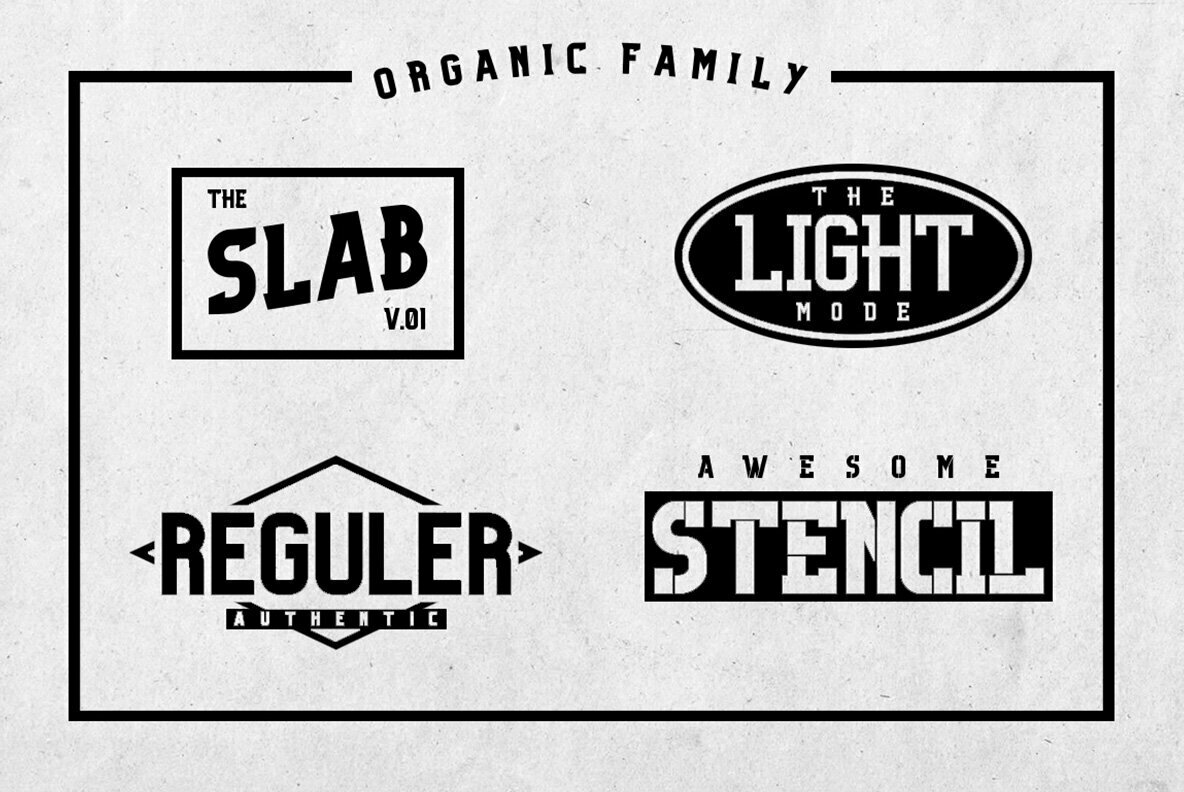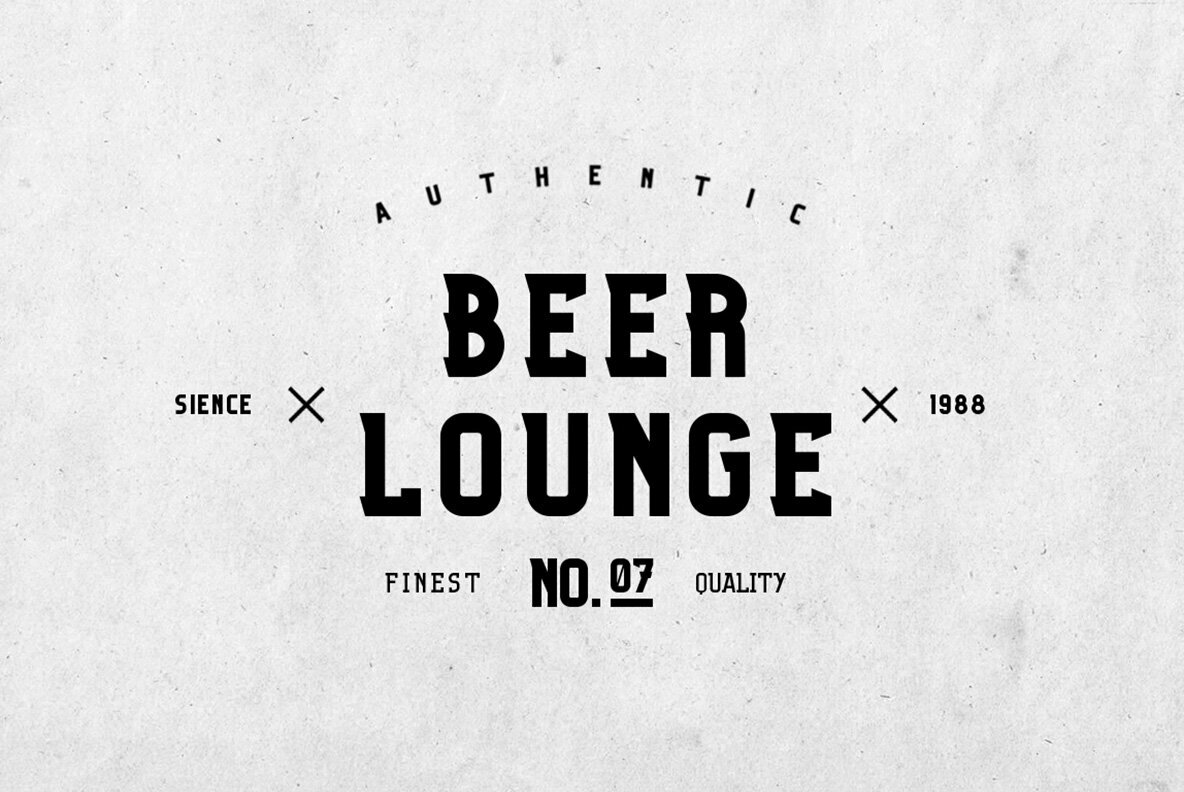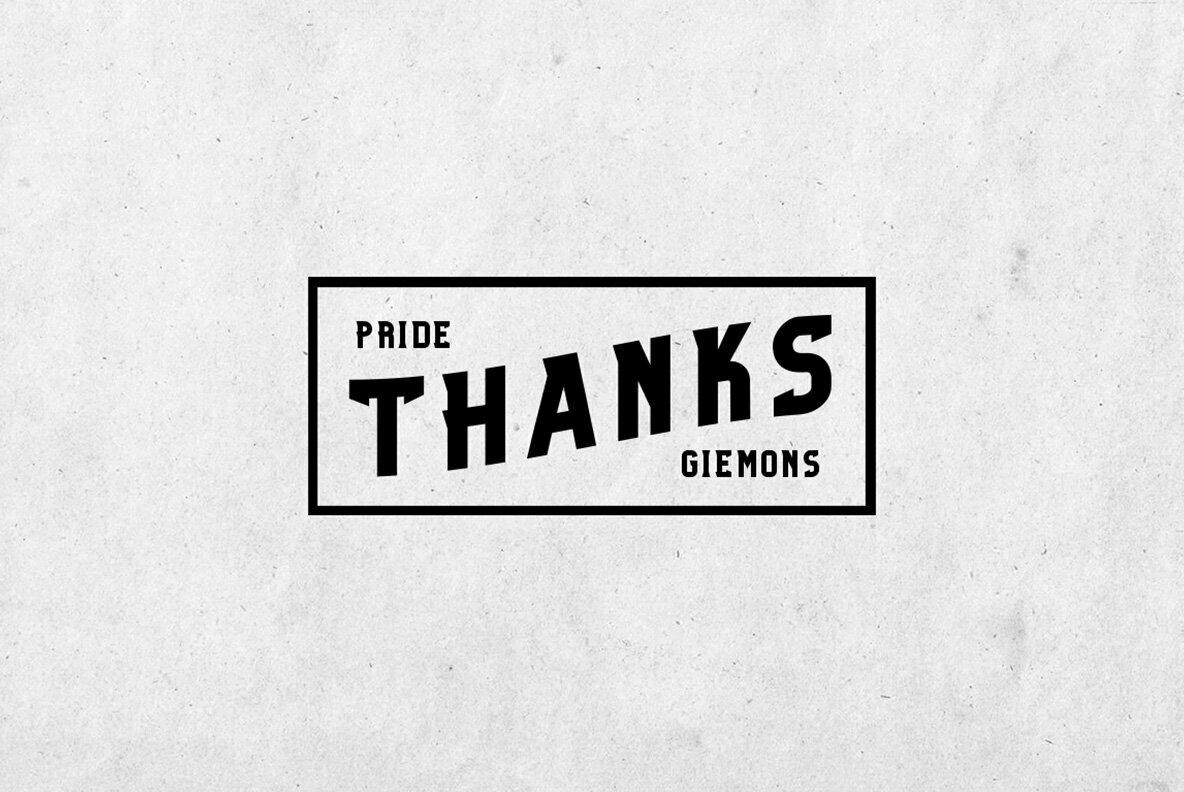
Organic Slab Font
Organic Slab
Organic Slab Font brings an eye-catching element to your creative projects, offering a robust yet elegant slab serif design. Its unique style is well-suited for an array of applications, from badges and posters to logo design and blog headers. Whether you're crafting quotes or designing T-shirts, this font ensures that your work stands out.Organic Slab: A Bold Typeface for Versatile Design